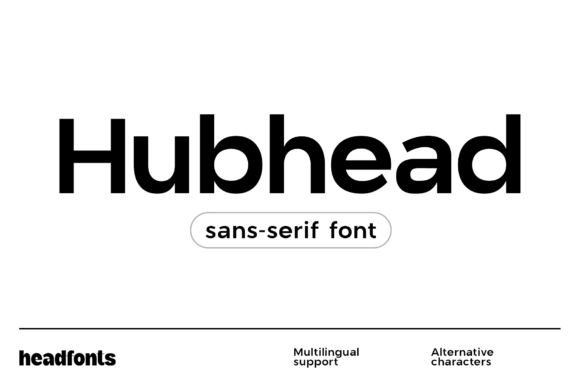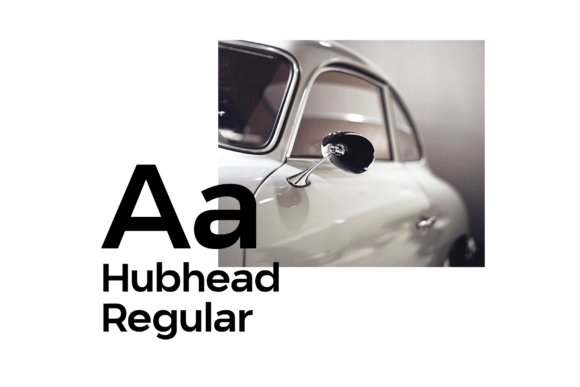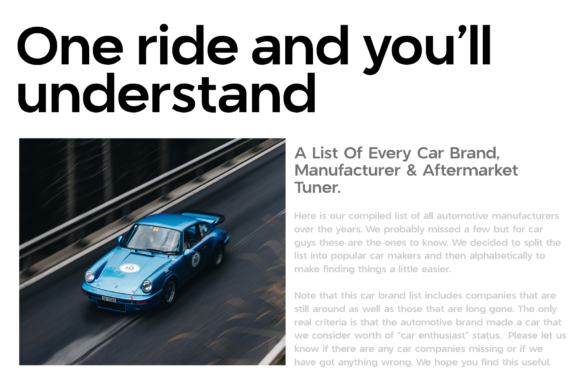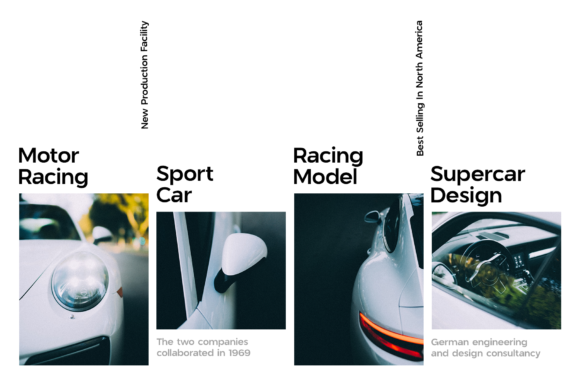
Hubhead Font: A Clean Sans Serif for Modern Logo Design & Branding
About the Hubhead Font
Add a touch of class to your work with the Hubhead Font, a truly exceptional typeface. Hubhead is an clean and natural sans serif font, that features classy look. Not too thin and not too thick, balanced and varied, this font was designed to enhance the beauty of your projects.
Hubhead’s balanced weight and clean lines make it ideal for headlines, logos, and short-form text in branding materials and posters. Its natural elegance translates well to packaging design, particularly for products emphasizing quality and sophistication. However, its limited x-height makes it less suitable for body copy or extended reading. Avoid using it for UI elements or long paragraphs, where readability is paramount.
Pairing Hubhead effectively requires considering its neutral yet refined personality. A classic serif like Garamond or a geometric sans-serif like Futura would create a sophisticated contrast. For a warmer feel, a script font like Playfair Display could be used sparingly for accents, while a modern sans-serif like Montserrat provides a friendly, contemporary alternative.
The overall personality of Hubhead is best described as sophisticated yet approachable. It conveys a sense of quiet confidence and understated elegance, making it a strong choice for brands aiming for a refined yet relatable image.